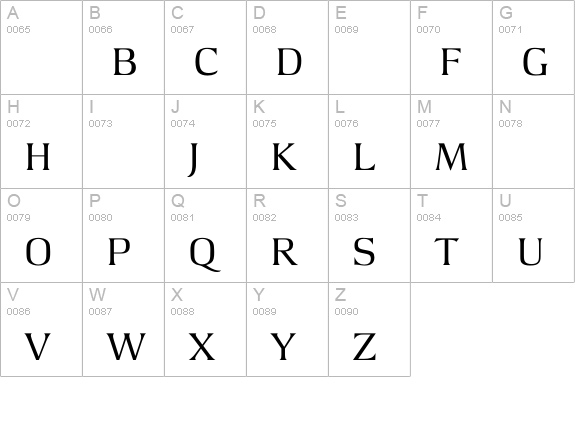
ArgusLight is a modern and elegant font that exudes sophistication and style. With its clean lines and sleek curves, this typeface is perfect for a wide range of design projects, from branding to editorial design. The light weight of the font gives it a delicate and airy quality, making it ideal for conveying a sense of refinement and subtlety. What sets ArgusLight apart is not just its aesthetic appeal, but also its accessibility. This beautiful font is available for free download at FontsMarket.com, making it easy for designers and creatives to incorporate it into their work without any cost. Whether you're working on a personal project or a commercial endeavor, ArgusLight offers a versatile and elegant option that is sure to elevate your design to the next level. Don't miss out on the opportunity to enhance your projects with the timeless charm of ArgusLight. Download this stunning font for free today and see the difference it can make in your designs.